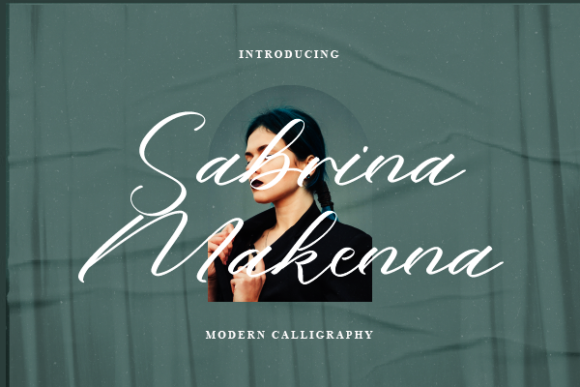
In the realm of typography, there exists a font that captivates the eyes and whispers of grace - Sabrina Makenna Font - a masterpiece of calligraphy that flows like poetry. This delicate handwritten font, carefully conceived by the artistic hands of Circle Studio, unveils a world of creativity and expression.
Sabrina Makenna is not just a font; it's an invitation to embark on a captivating journey where words dance with an ethereal grace, where your designs come alive with a vibrance that knows no bounds. Its characters, balanced and harmonious, create visual symphonies that touch the soul.
With this font, your designs will transcend the ordinary, captivating audiences with a charm that is both timeless and alluring. Imagine your designs adorned with the elegant curves and flourishes of Sabrina Makenna, invoking a sense of wonder and desire. Your words will become visual masterpieces, leaving an enduring impression on the hearts and minds of your audience.
In the world of web design, where every element strives to capitivate, Sabrina Makenna reigns supreme. Its delicate lines, reminiscent of a skilled calligrapher's hand, add a touch of refinement and class to your web presence. Your website will exude a charm that is both captivating and timeless, creating a user experience that is truly unforgettable.
If you seek a font that speaks of grace, that whispers of charm, that breathes a soul into your creative endeavors, then look no further. Sabrina Makenna Font awaits you, poised to elevate your designs to the realm of artistic mastery. Its delicate nature, balanced with a touch of boldness, ensures your words will dance off the screen, grabbing attention and etching themselves into the memory of your audience.